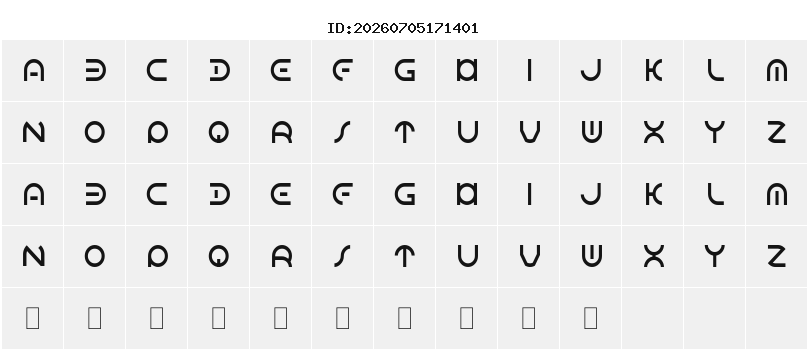
• Font Name: Dome Circle Thin
• Full Font Name: Dome Circle Thin
• Version: Version 1.00 August 1, 2013, initial release
• Designer: Erion Dyrmishi
• Manufacturer: Erion Dyrmishi
Dome Circle Thin.otf is a modern, elegant sans-serif font designed for ultimate readability and visual harmony. Perfect for branding, headlines, web design, and print materials.